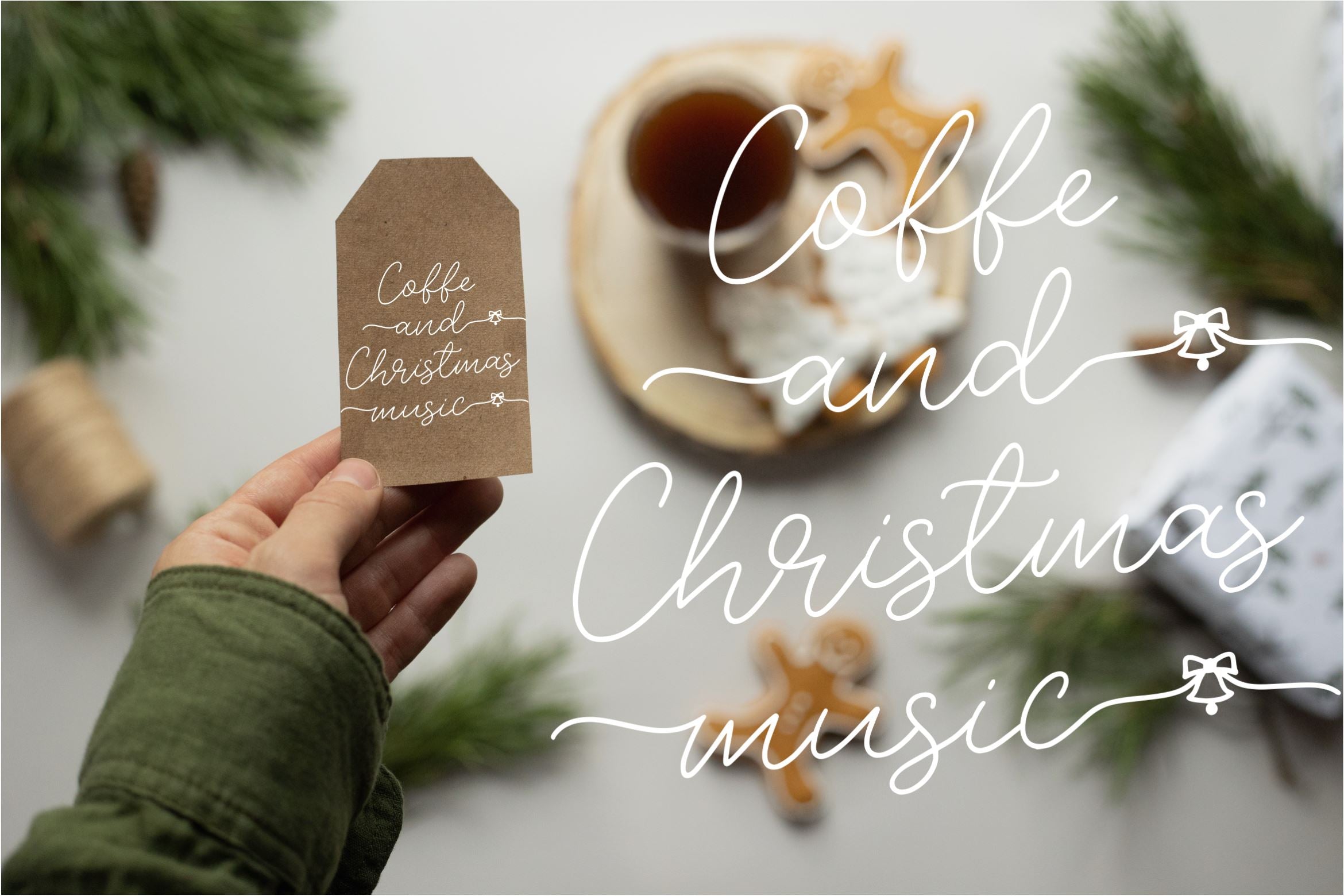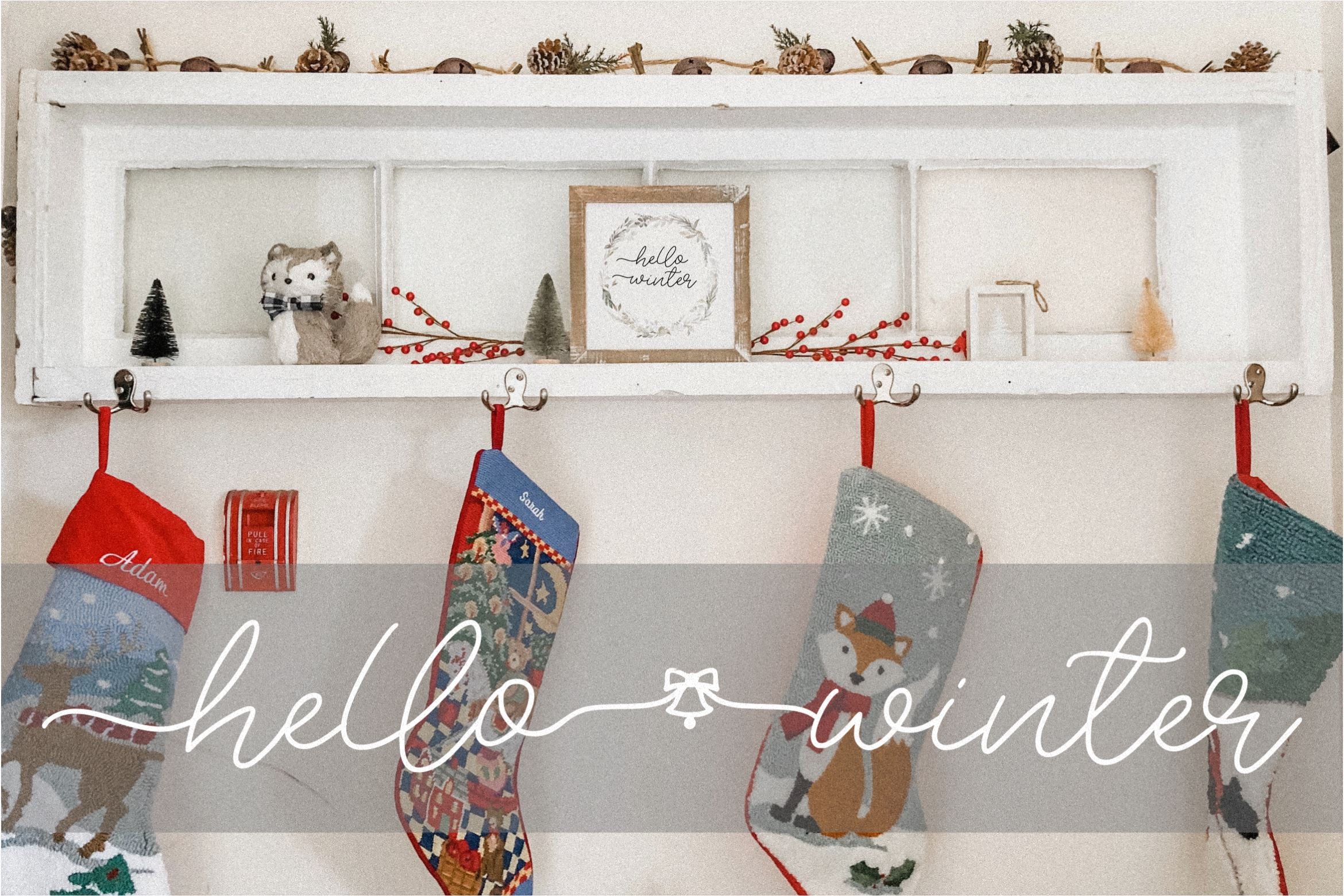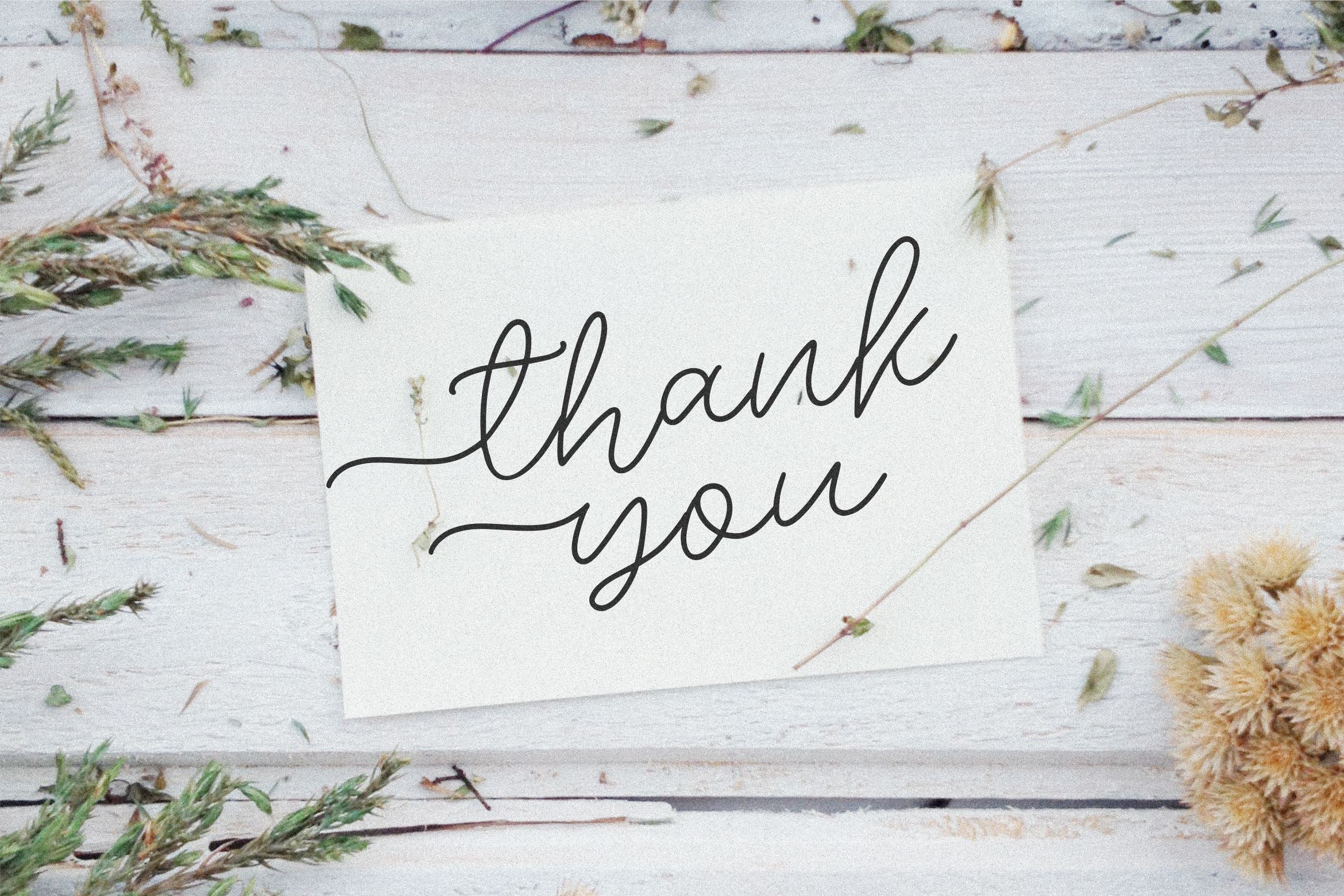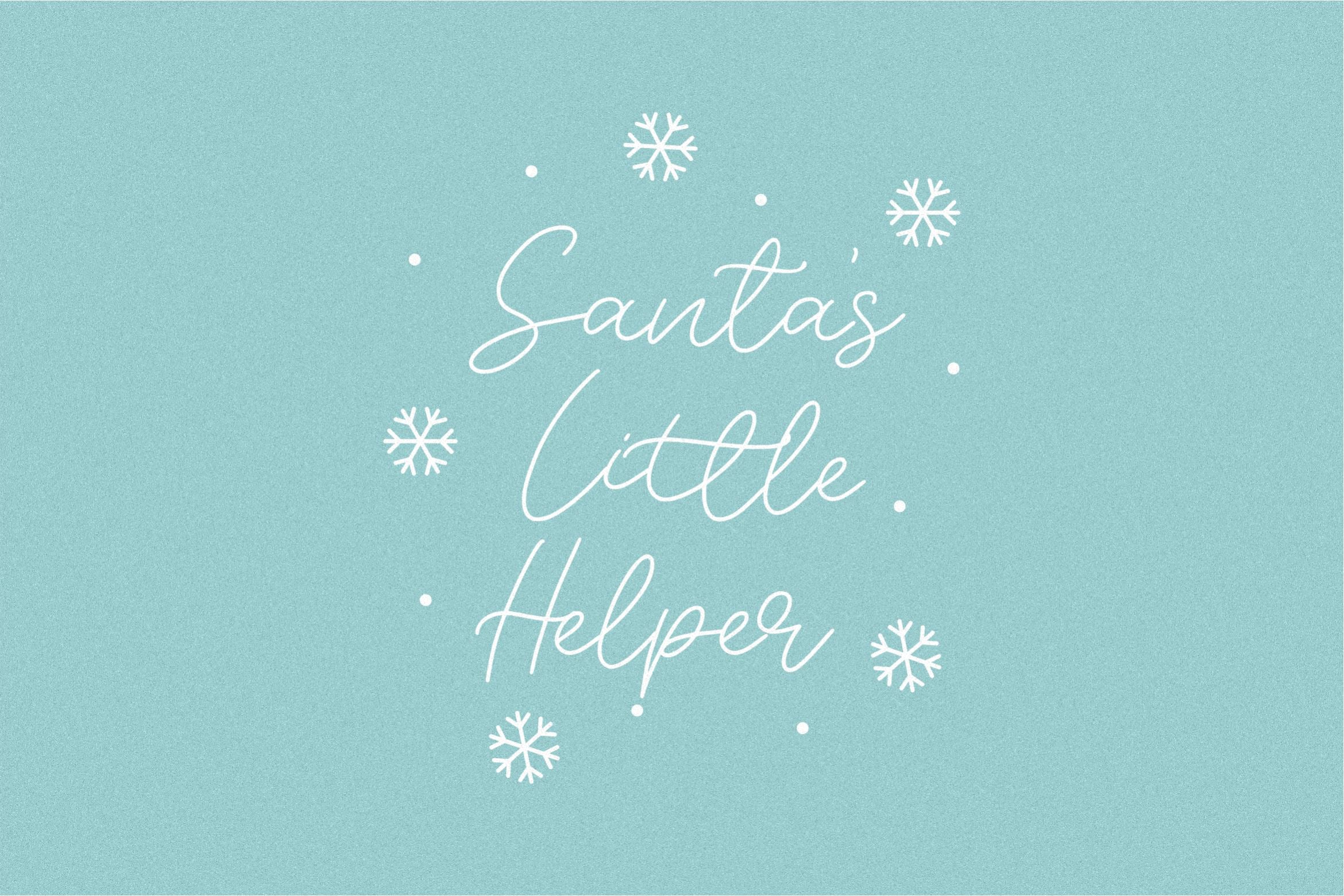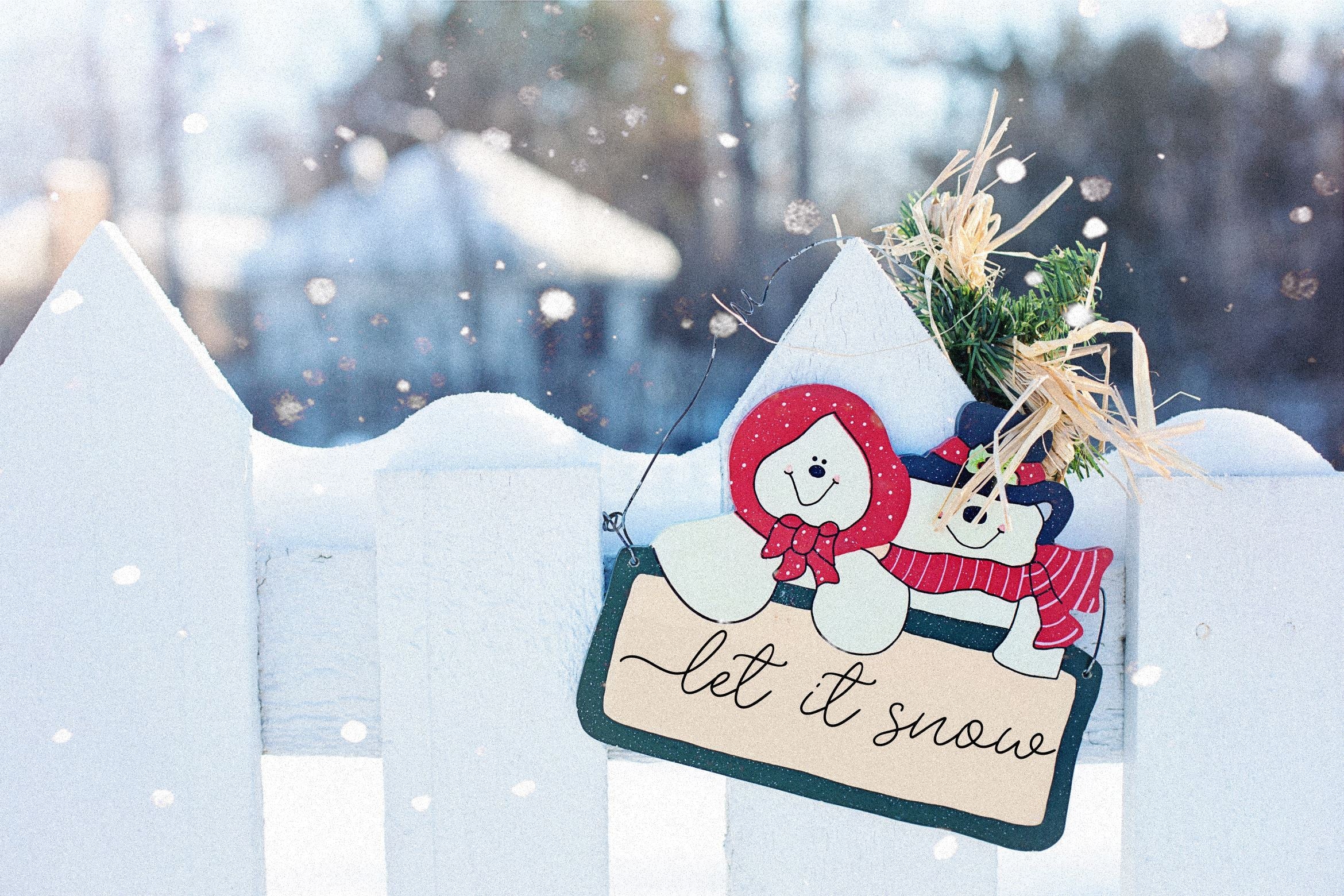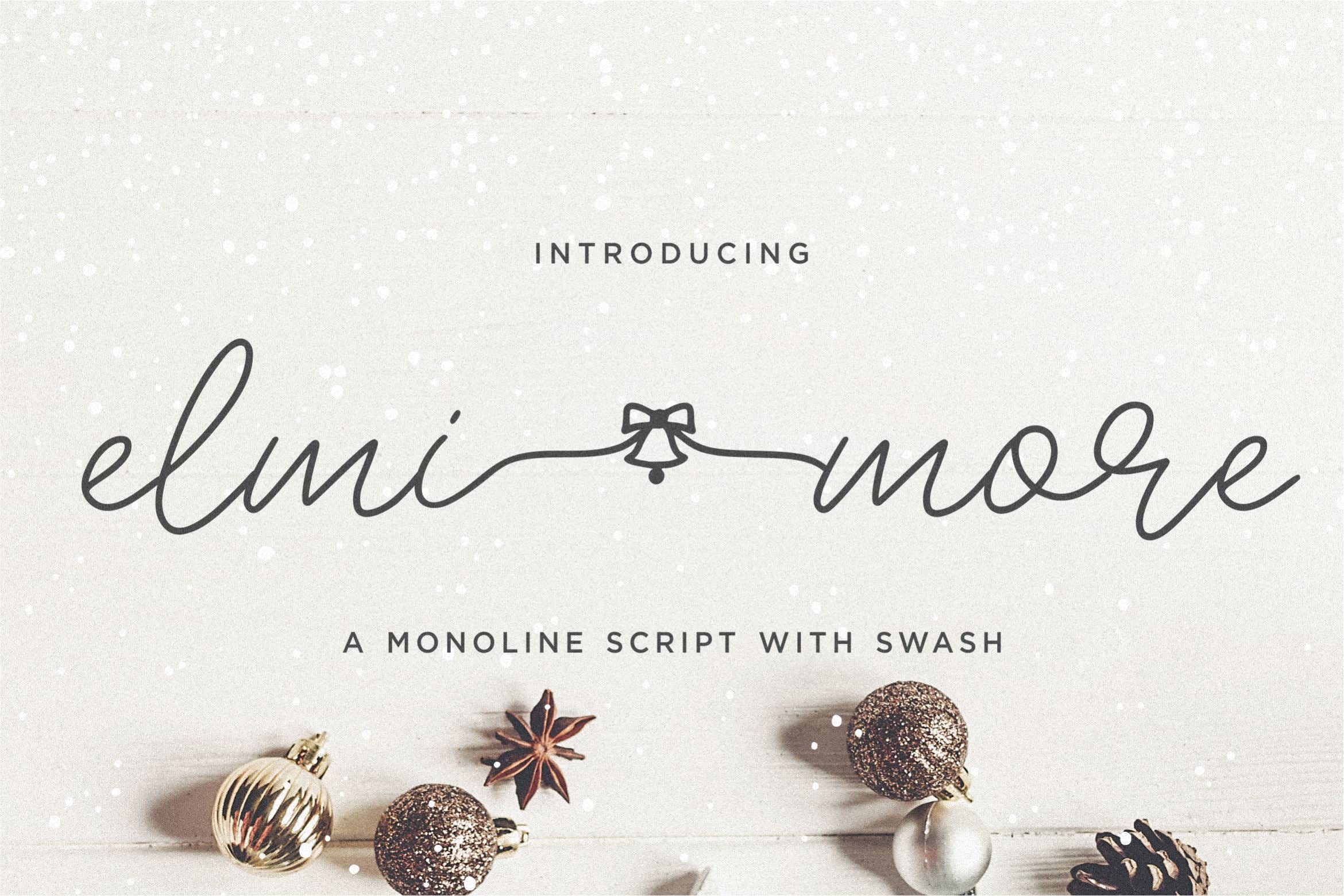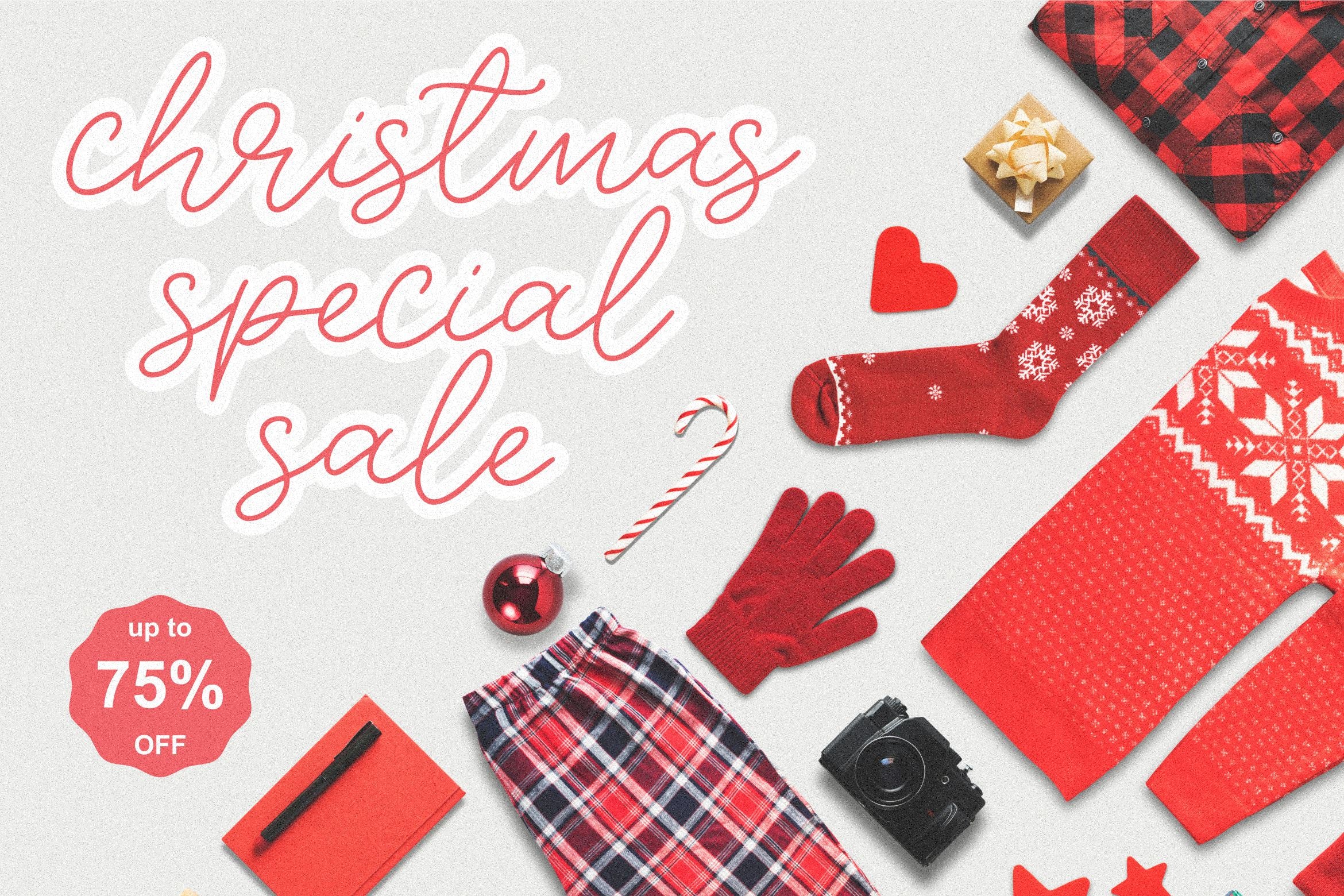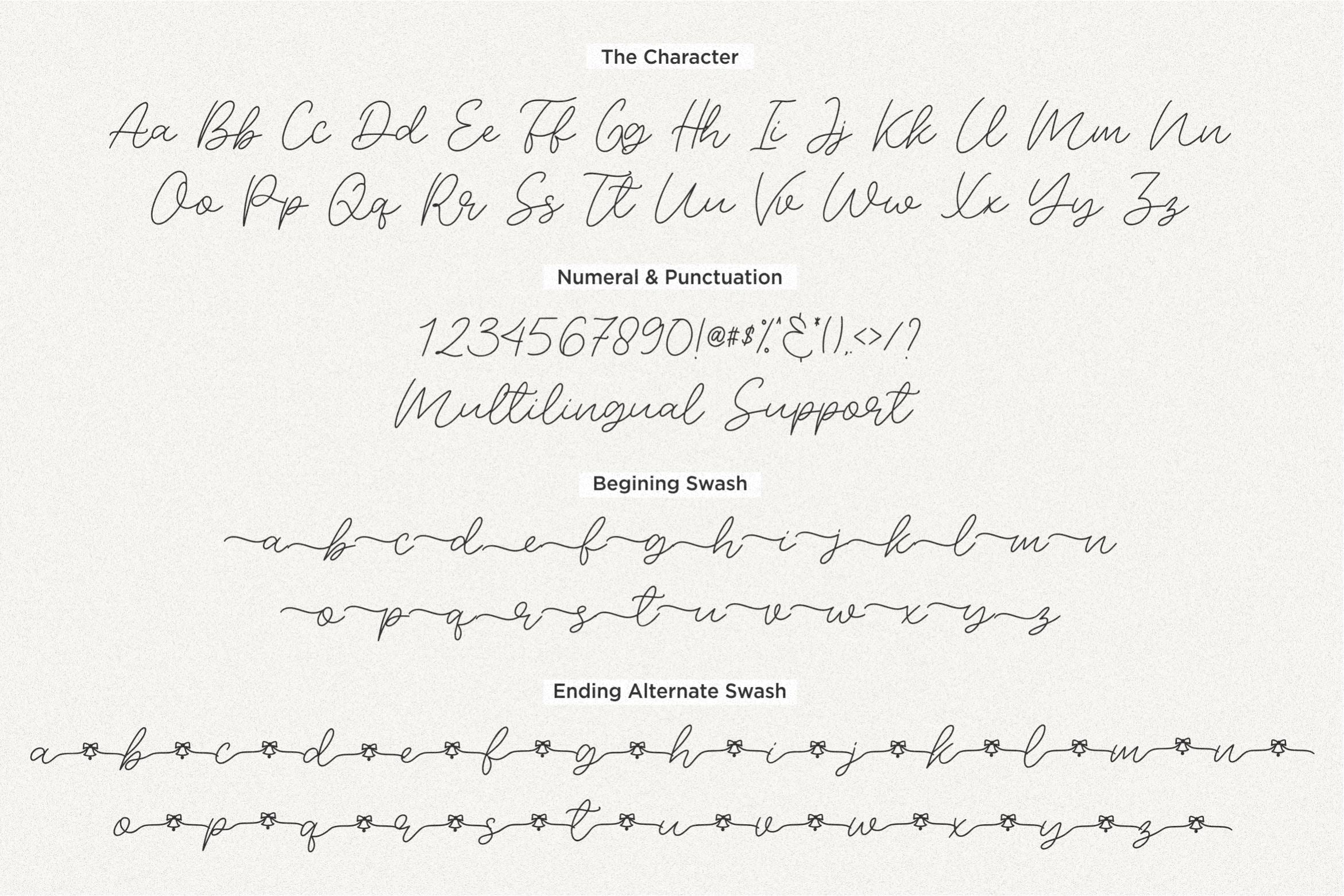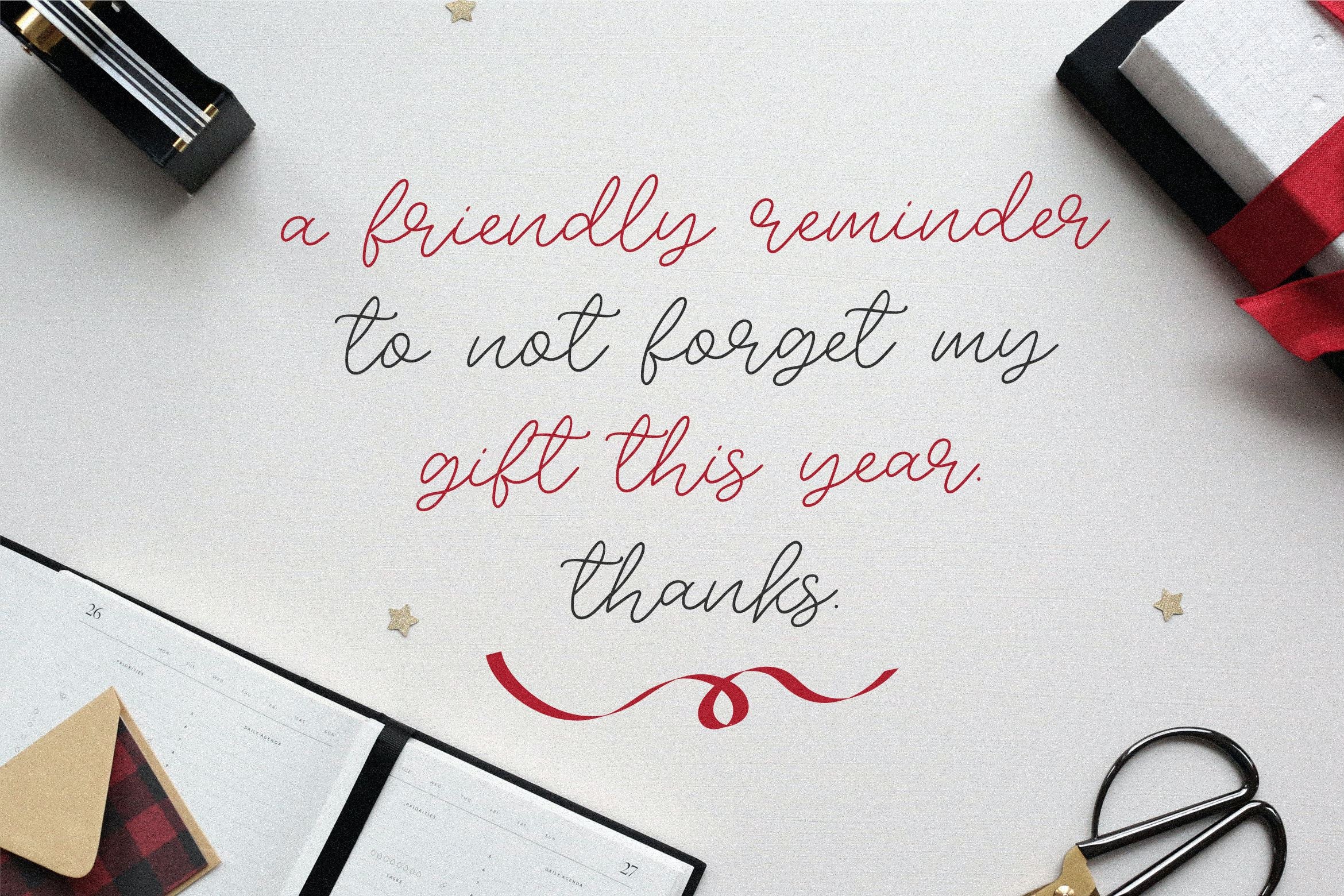
Elmimore
Introducing by Qwrtype Proudly Present, Elmimore ElmimoreĀ is a Monoline Script with Swash ElmimoreĀ is perfect for product packaging, branding project, megazine, social media, wedding, or just used to express words above the background. This font includes OTF, TTF & Woff,Ā  Bailey SidneyĀ also multilingual support. Enjoy the font, feel free to comment or feedback, send me PM or email. Thank you!